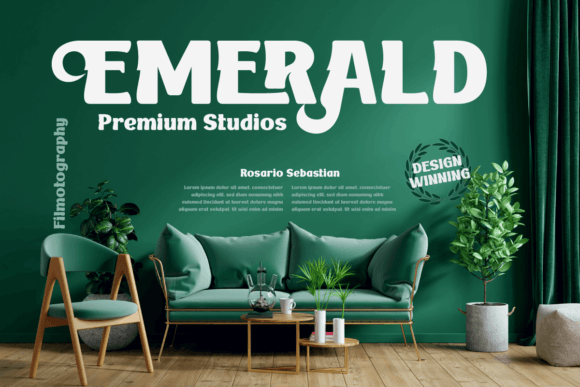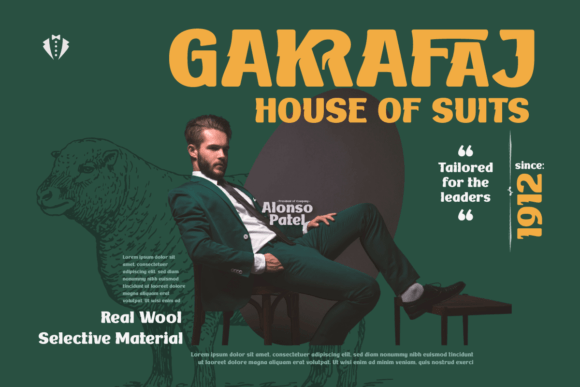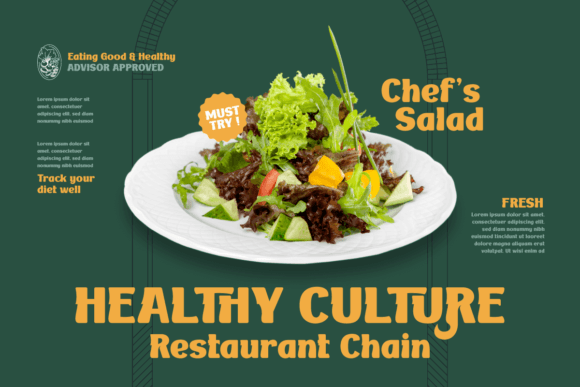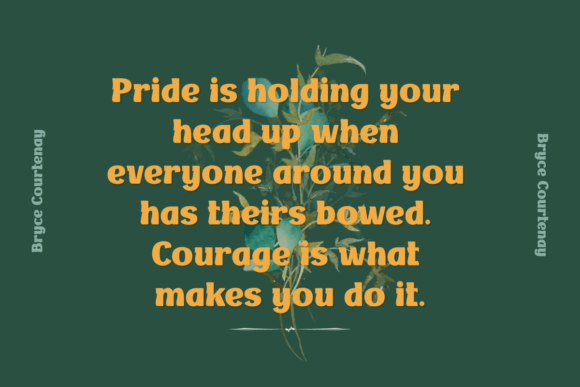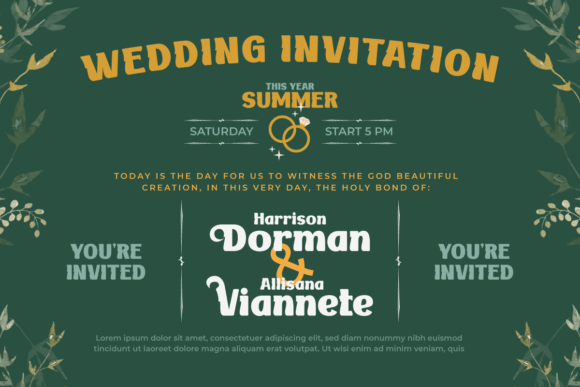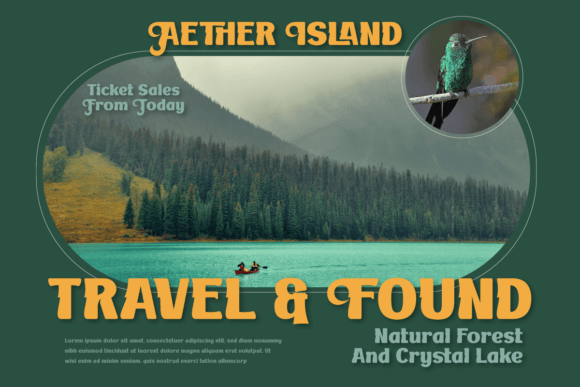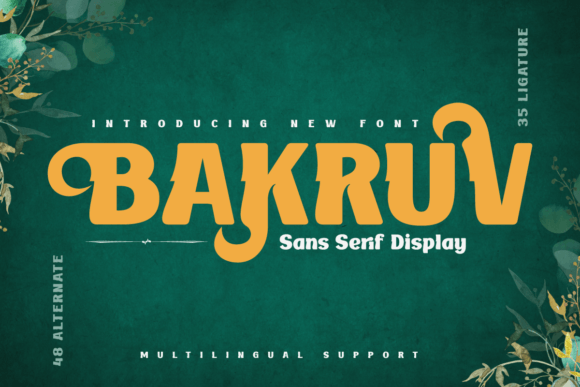
Discover the Timeless Elegance of Bakruv Font: A Perfect Blend of Classic and Modern
Are you searching for a font that embodies the essence of classic modernism? Look no further than the Bakruv font collection. This exquisite serif font is meticulously designed to bring a touch of sophistication and elegance to your projects. With its perfect balance of traditional and contemporary elements, Bakruv is the ideal solution for designers and crafters seeking to create a unique and captivating visual identity.
A Classic Serif Theme with a Modern Twist
Bakruv font boasts a classic serif theme that exudes strength and courage. Each letter is carefully crafted to combine beauty and elegance, making it perfect for projects that require a touch of refinement. The font’s classic serif design ensures that your work will stand the test of time, while its modern twist adds a fresh and contemporary feel.
Unleash Your Creativity with Ligature and Alternate Features
One of the standout features of Bakruv font is its ligature and alternate features. These features provide flexibility in creating a unique and attractive appearance, allowing you to express your creativity more freely. With Bakruv, you can experiment with different combinations of letters and glyphs to create a distinctive look that sets your project apart.
A Rich Collection of Characters at Your Fingertips
Bakruv font offers a rich collection of characters, ensuring that you have everything you need to bring your creative vision to life. From uppercase and lowercase letters to numerals and punctuation marks, this font has got you covered. The PUA (Private Use Area) encoding makes it easy to access all the amazing glyphs and ligatures, allowing you to focus on your design without any hassle.
Experience Unparalleled Quality and Professionalism
Every detail of Bakruv font is designed to ensure an impressive and professional end result. The high-quality design and meticulous attention to detail make it perfect for a wide range of projects, from branding and advertising to packaging and publishing. With Bakruv, you can trust that your work will look polished and sophisticated, making a lasting impression on your audience.
Make an Unforgettable Impression with Bakruv
In today’s competitive design landscape, it’s essential to stand out from the crowd. With Bakruv font, you can create a unique and memorable visual identity that sets your project apart. Whether you’re a designer, crafter, or entrepreneur, Bakruv provides the perfect tools to bring your creative vision to life and make an unforgettable impression.
Key Features of Bakruv Font
- Classic serif theme with a modern twist
- Ligature and alternate features for added flexibility
- Rich collection of characters for creative freedom
- High-quality design for professional results
Get Ready to Elevate Your Designs with Bakruv
Explore the Bakruv collection now and discover a world of creative possibilities. With its perfect balance of classic and modern elements, Bakruv font is the ideal solution for designers and crafters seeking to add a touch of sophistication and elegance to their projects. Make an unforgettable impression with Bakruv and experience the power of high-quality typography.